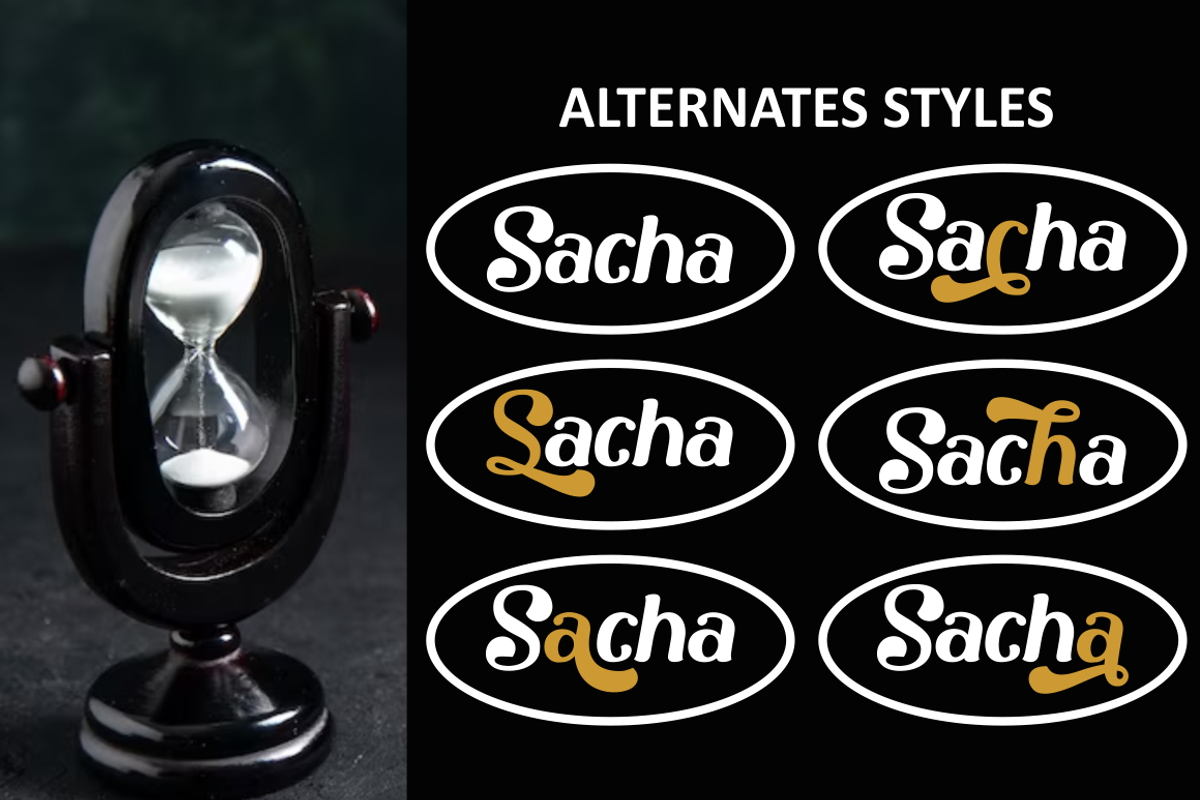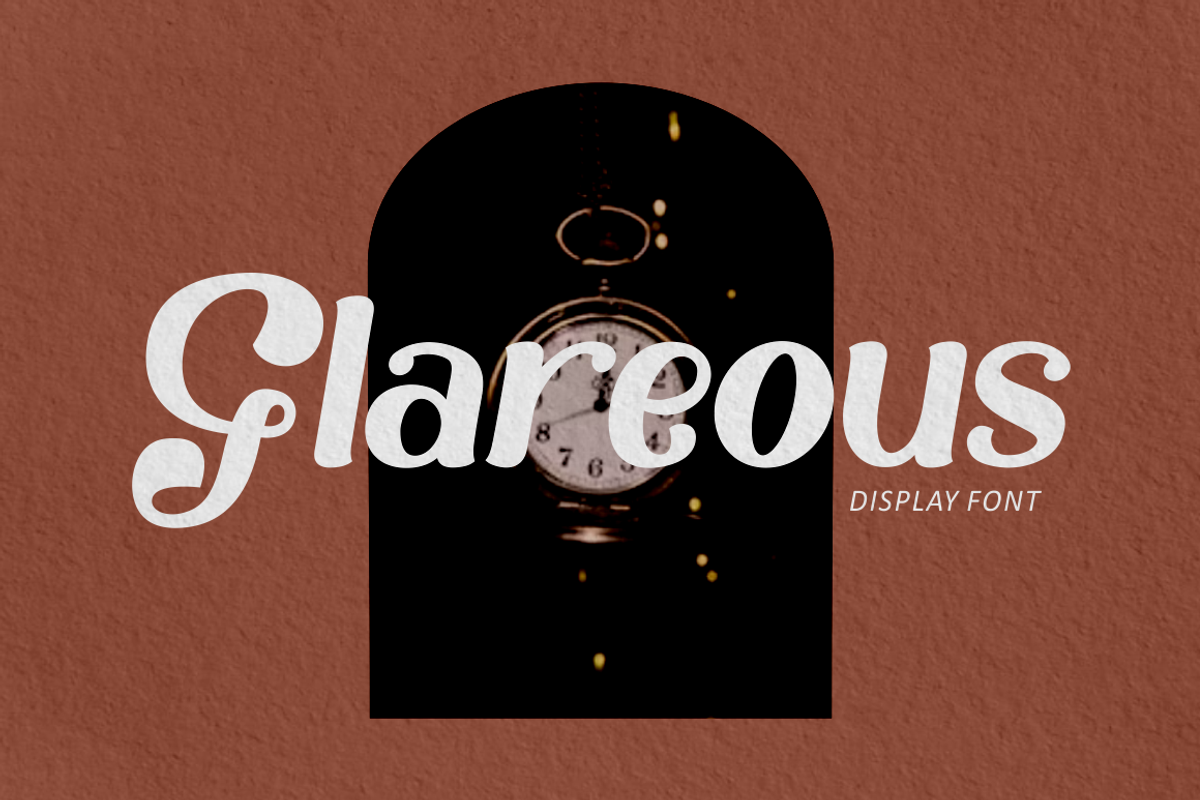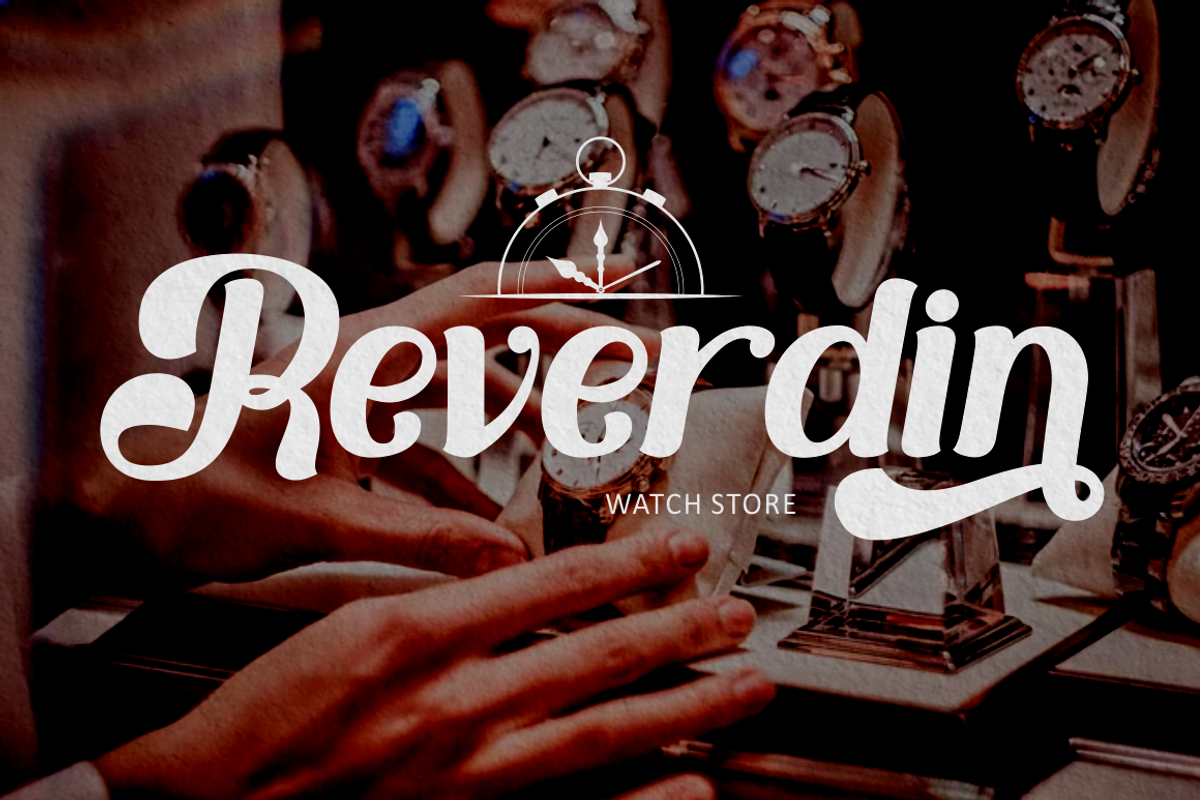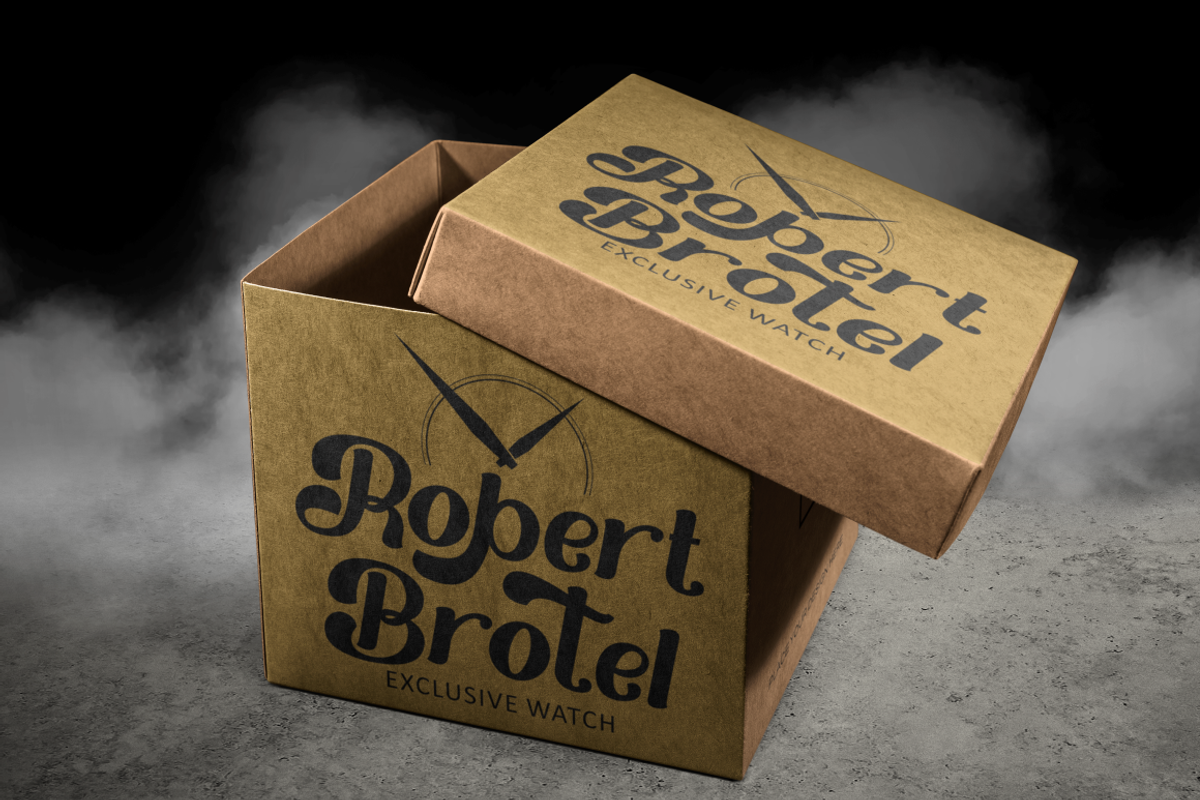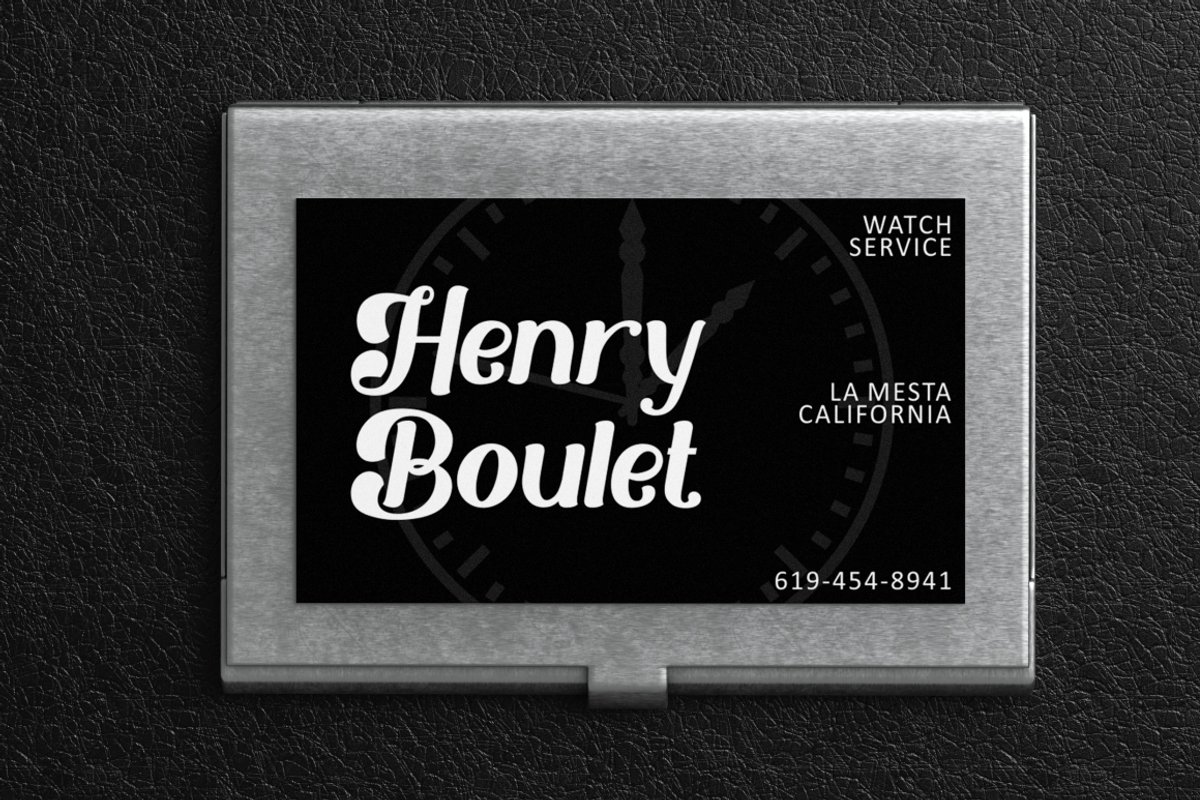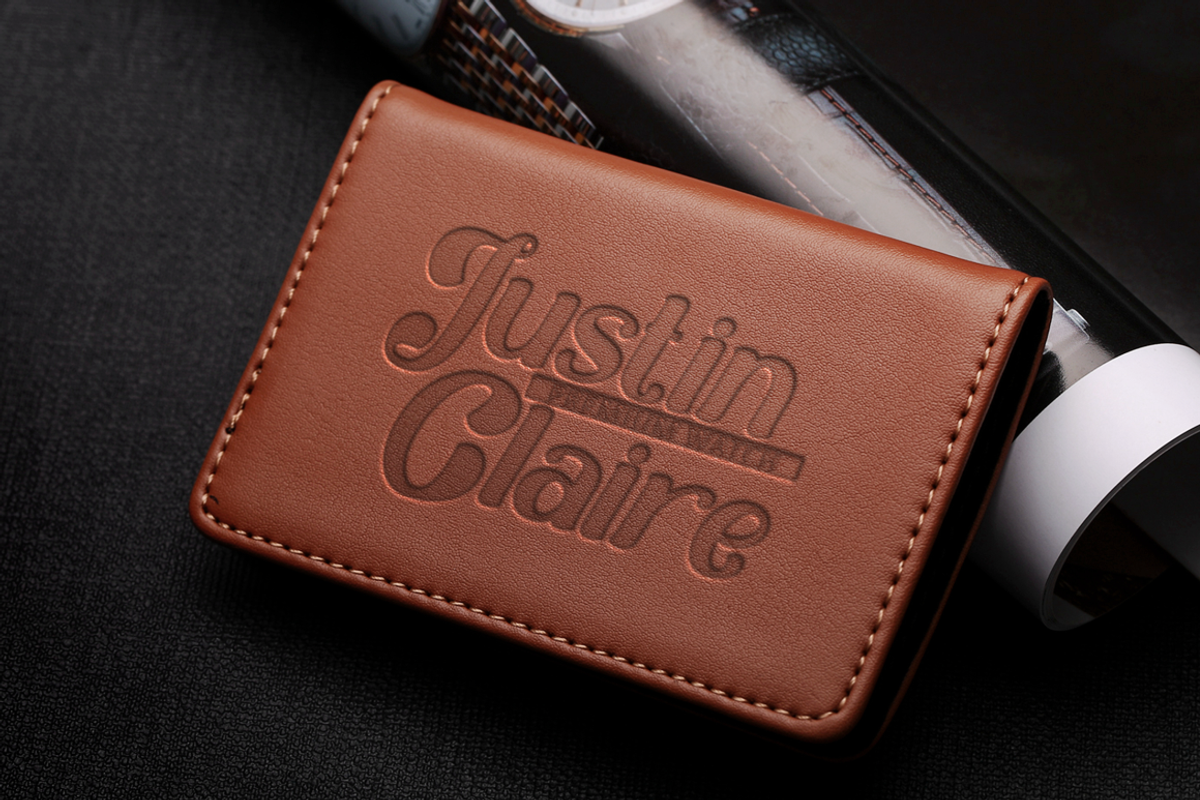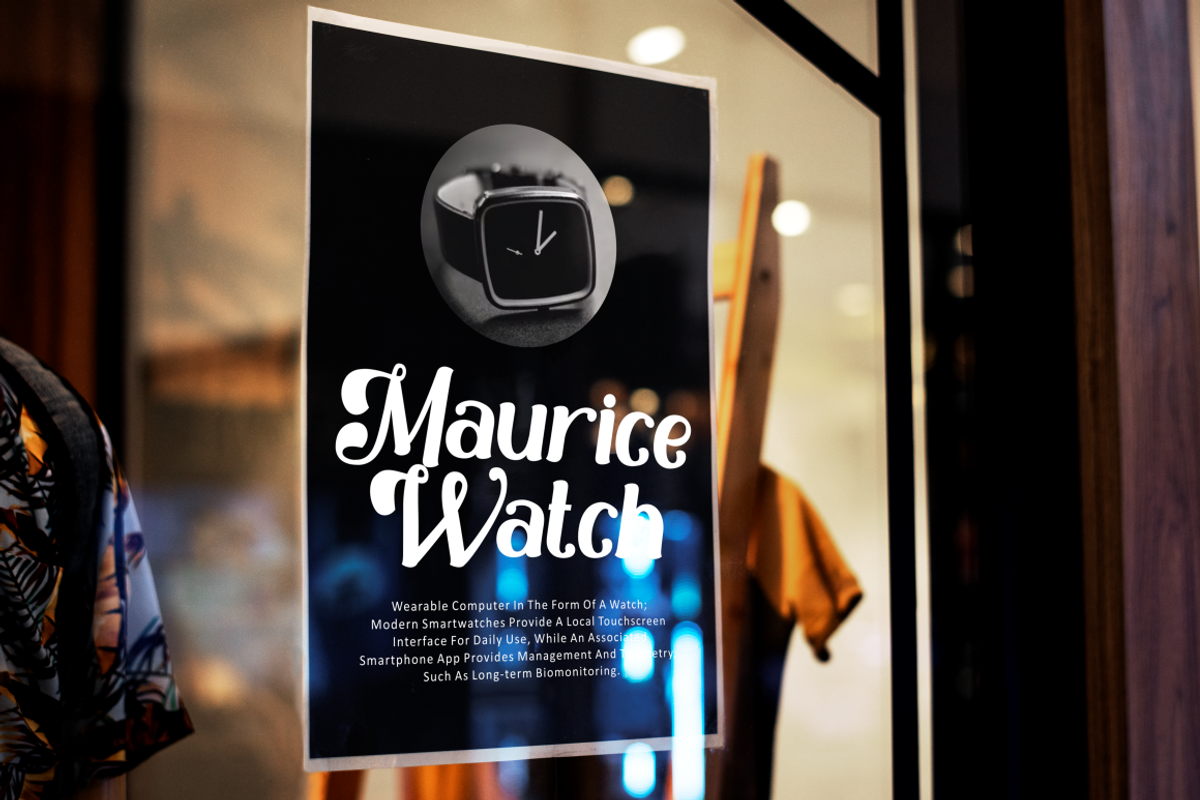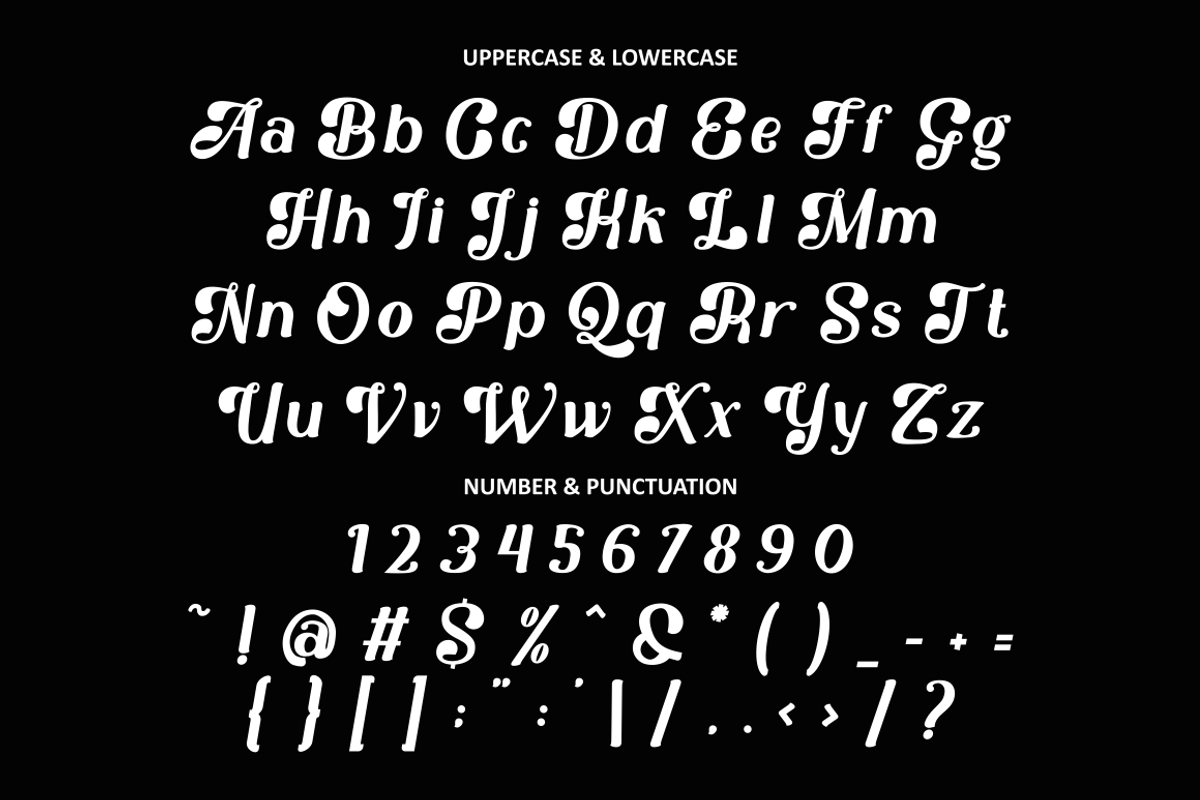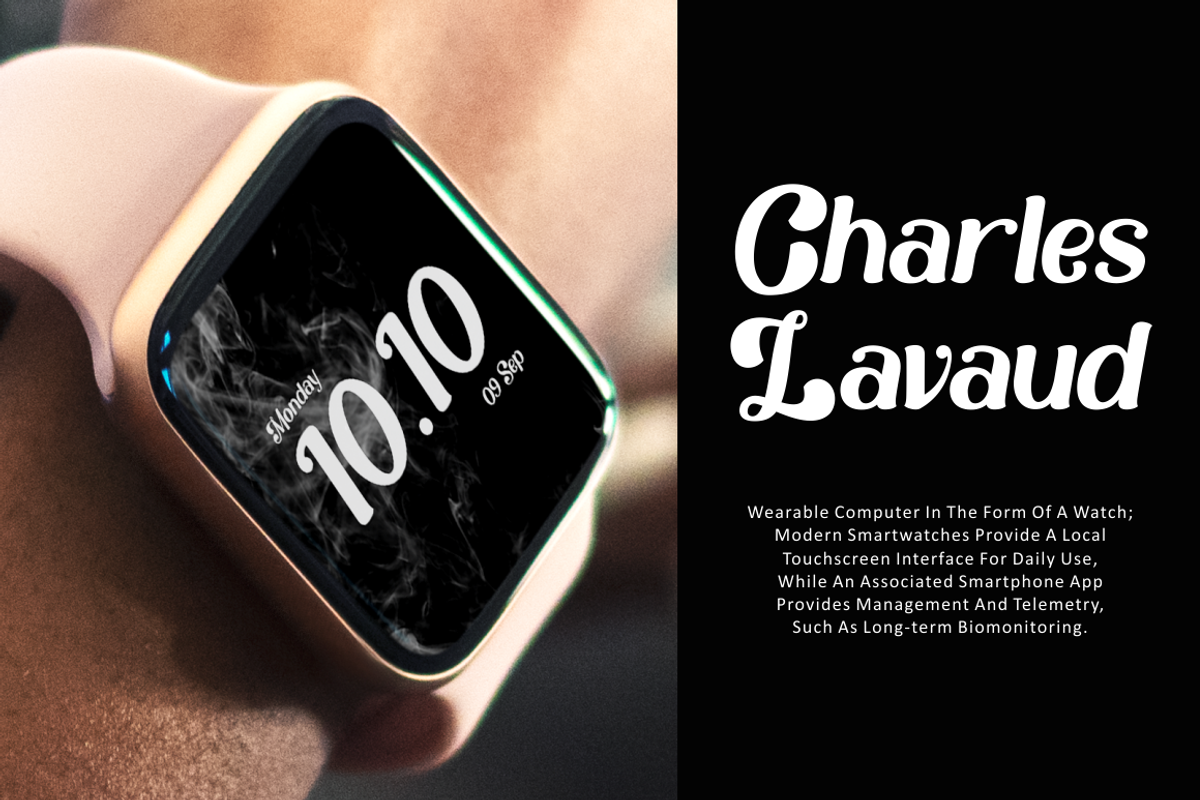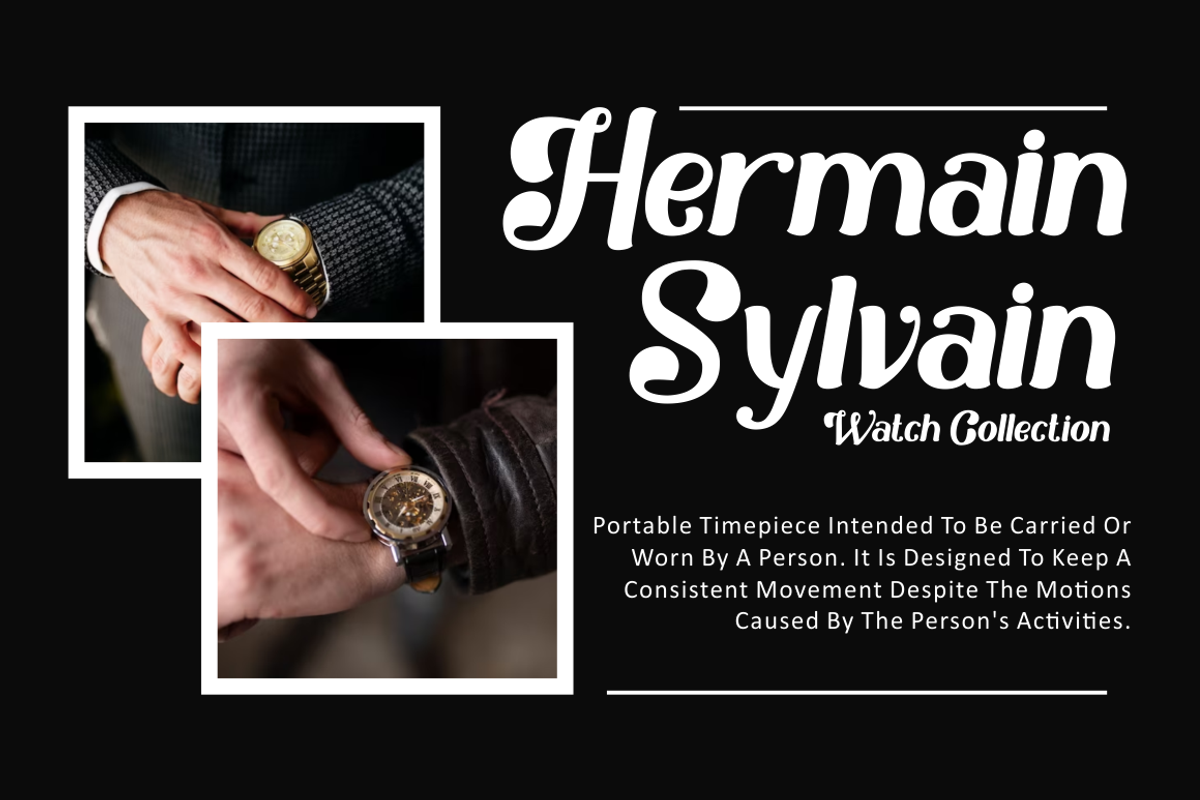
Glareous - Modern Display Font
Glareous - Modern Display Font is a versatile typeface that combines elegance and luxury to create a contemporary design solution. With its modern aesthetic and sleek letterforms, it adds a touch of sophistication to your projects. This font offers a wealth of alternative characters, allowing for extensive creative possibilities and design adaptability.
Ideal for logos, packaging, quotes, business branding, posters, magazines, and a variety of creative applications, Glareous provides a dynamic platform for your design needs. Its clean lines and stylish demeanor make it suitable for a wide range of themes and projects.
Whether you're creating a logo that exudes luxury, packaging with a modern twist, or a quote for a stylish presentation, Glareous is the font that will elevate your designs and bring them to life.